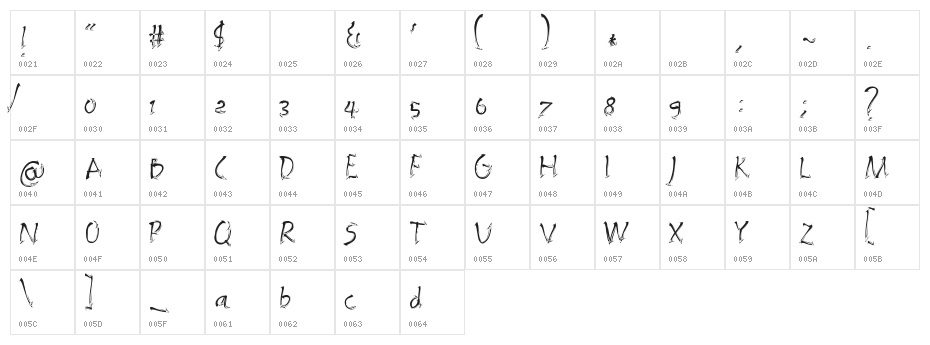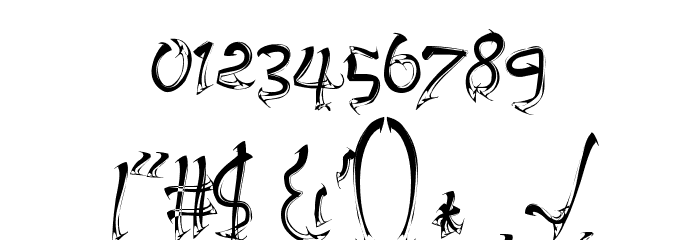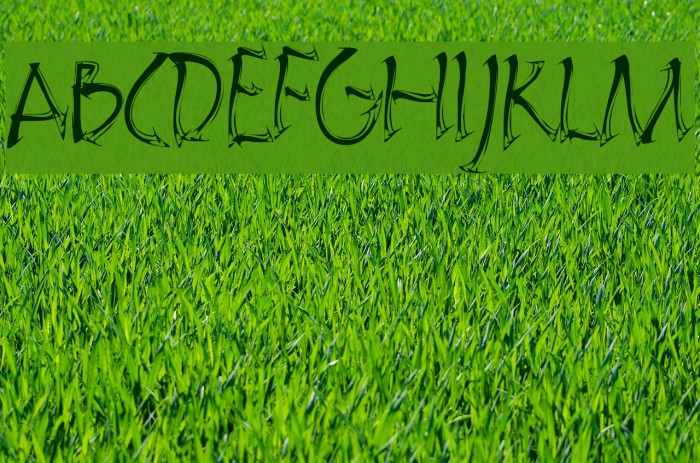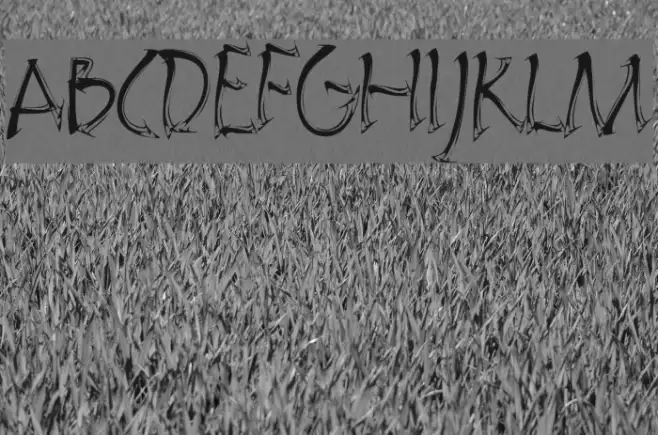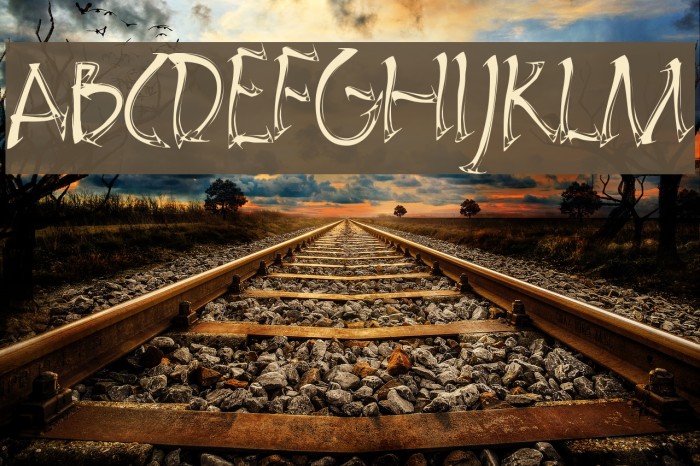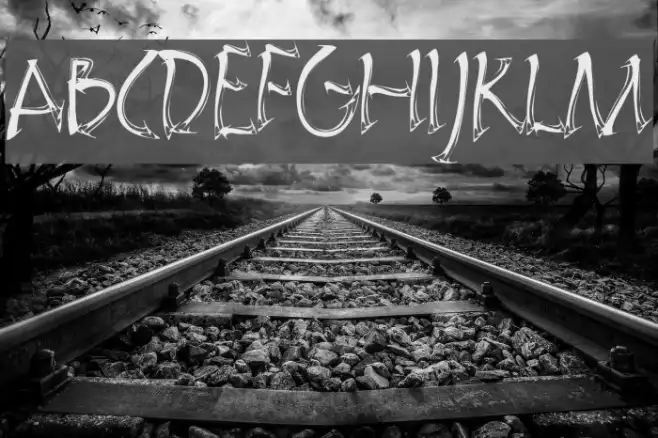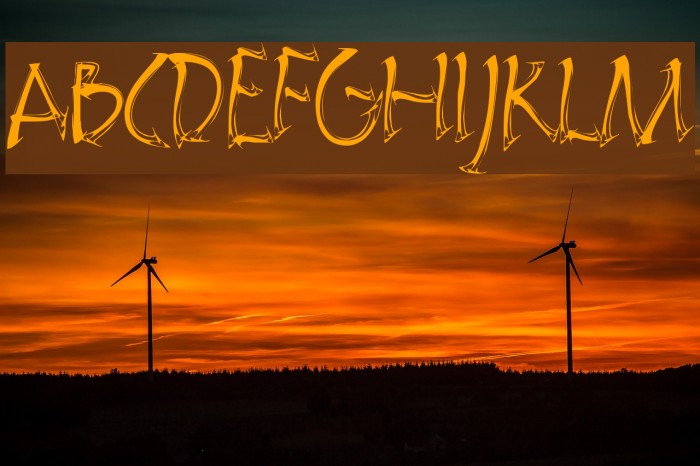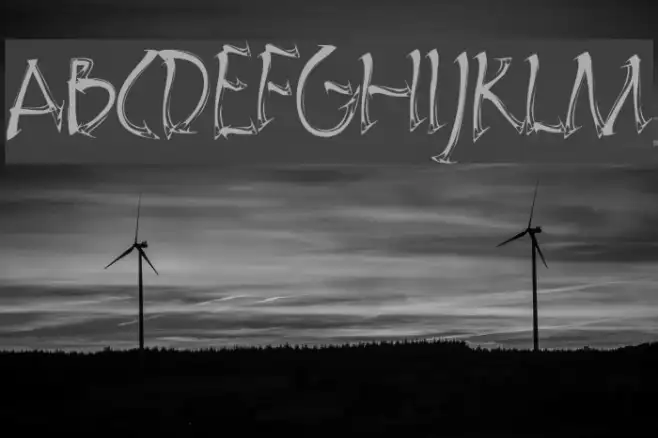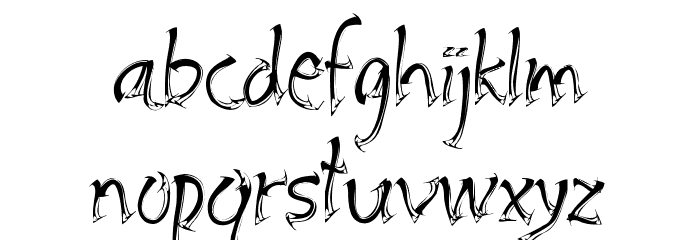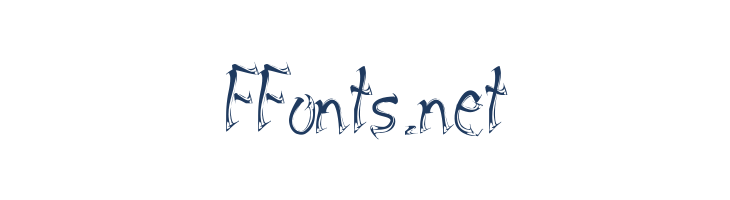
Embrush Font
Embrush Description
This font features a dynamic and expressive style, characterized by its bold, brush-like strokes that give it a hand-drawn appearance. The letters have an energetic and slightly chaotic feel, with irregular edges and varying line thicknesses that create a sense of movement and spontaneity. The uppercase and lowercase letters maintain a consistent aesthetic, while the numerals and special characters complement the overall design. This font's unique style makes it stand out, offering a creative and artistic flair.
| Use Case | Logos, Headlines, Artistic designs |
| Proposed Projects | Ideal for creative projects such as posters, album covers, artistic branding, and event invitations. |